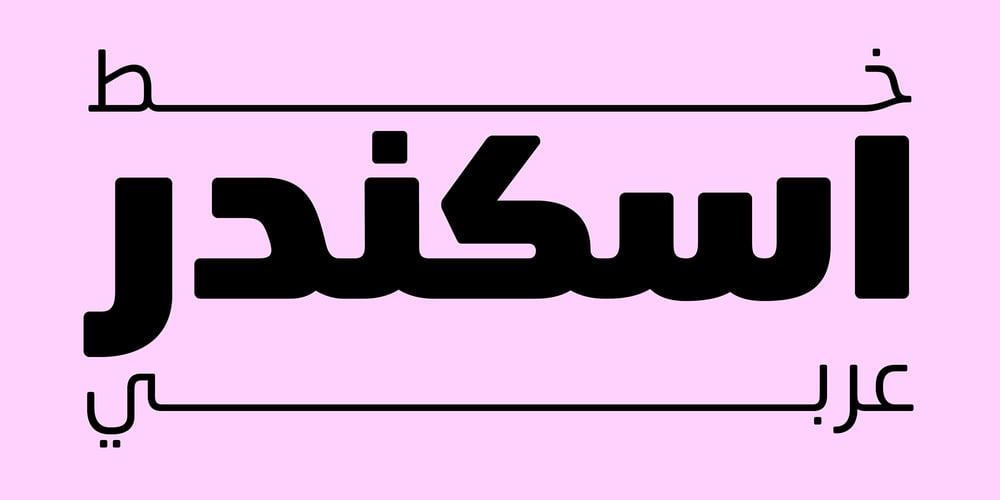
Eskander Arabic Font Family was designed by Ibrahim Hamdi and published by Protype. Eskander Arabic contains 7 styles and family package options. Eskander the first version designed at 2018, and re-designed at 2021.Eskander is Arabic typeface with rounded edges and friendly. For web, digital applications and prints, supported languages (Arabic, Persian and Urdu). Eskander is a trademark of Protype Foundry Ltd, Design by Ibrahim Hamdi.